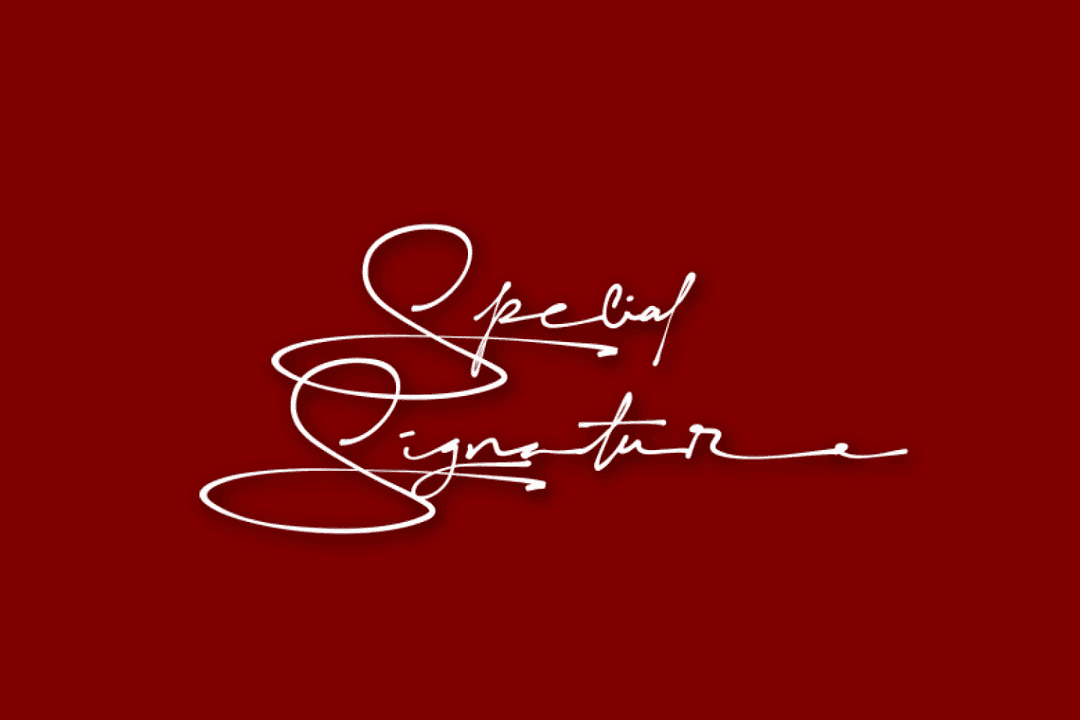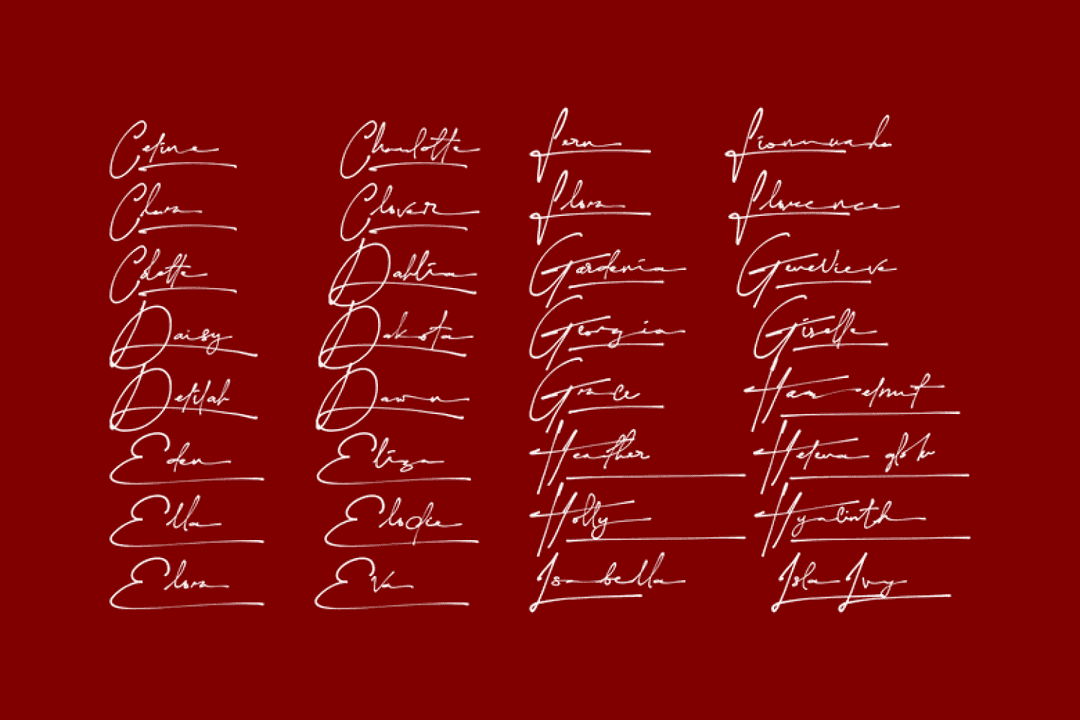
Present to your attention “Yonitta” – our Signature Script Font suitable for the female styles. As a perfect font for creating product’s brand names, such as cosmetics, photos, and invitations, as well as personal branding, Yonitta is an elegant and fluid handwritten font with PUA encoded characters that allow you to access all the glyphs and swashes easily.